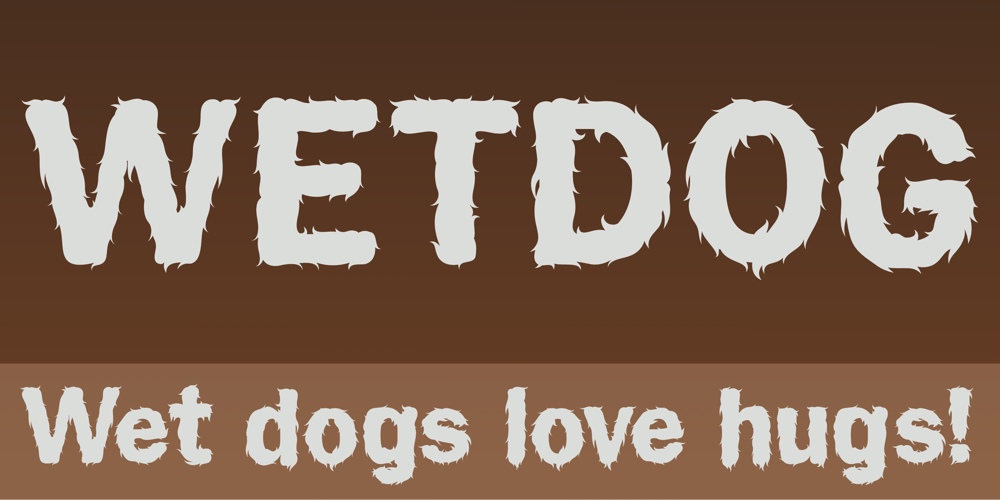
Wet Dog
Wet Dog font
Wet Dog Font Family was designed by John Paul Leimone and published by Leimone Design. Wet Dog contains 1 styles and family package options. Wet Dog is the ultimate fur font reflecting the global movement of street pop art, Playful, yet with attitude. A versatile display font for making strong, loud statements, just about as shy as a wet dog!